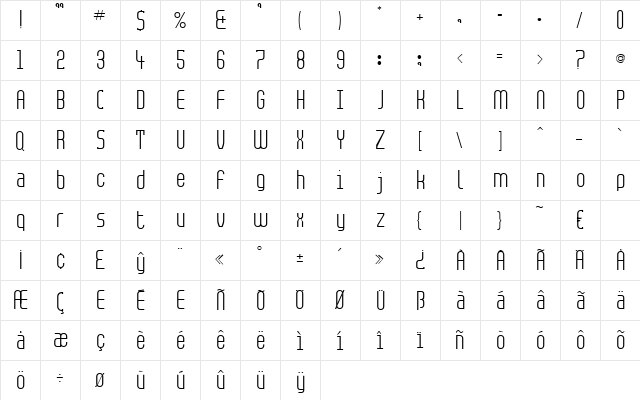
Perkeo Regular
Design Context for Perkeo Typeface
Perkeo takes a measured approach to typography — its balanced proportions and neutral character make it a reliable workhorse for both digital and print work.